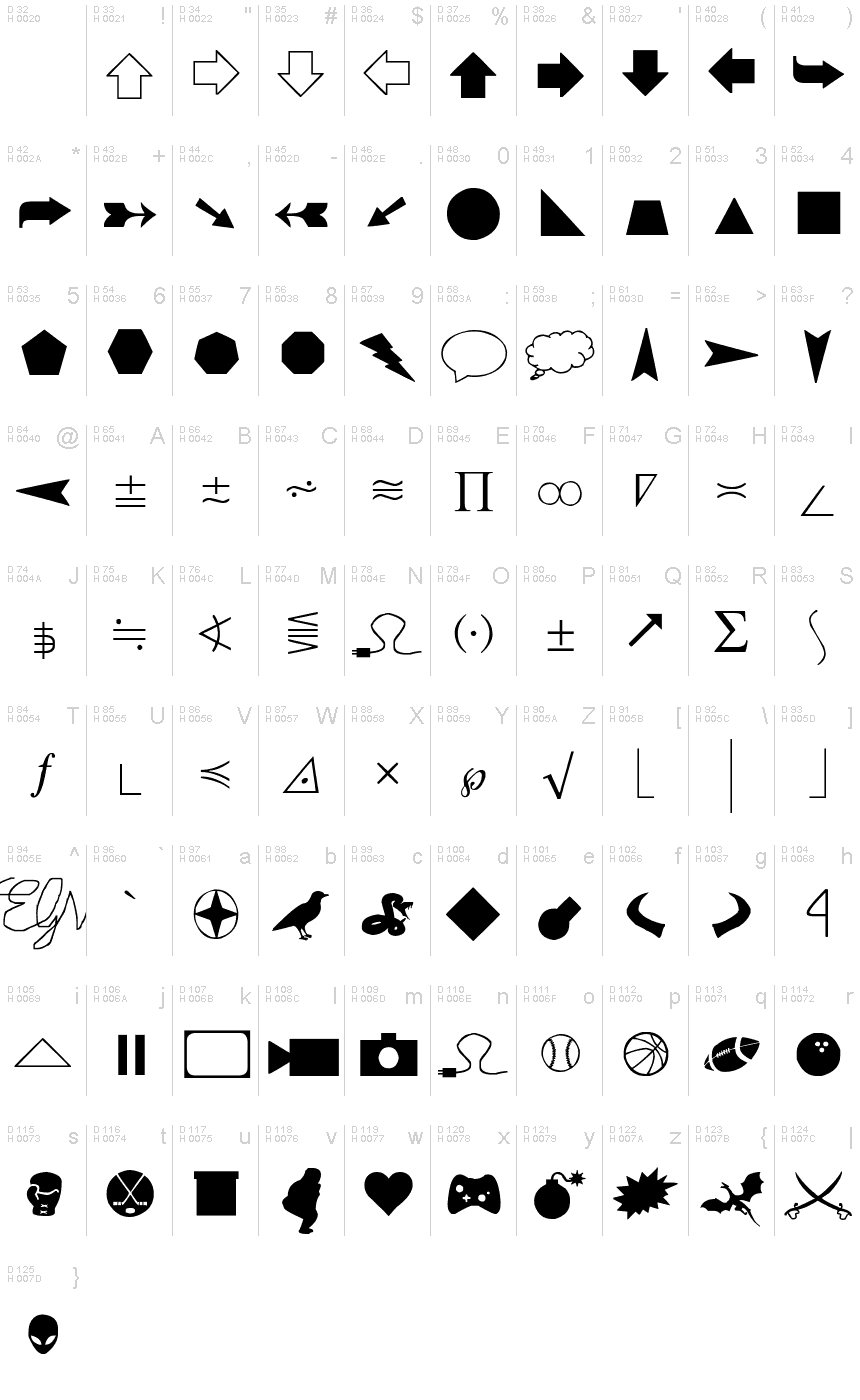
Markdings Two
Markdings Two, crafted by an innovative typographer, is a captivating dingbats font that introduces a modern twist to your design projects. With its geometric signs and versatile arrows, this typeface unleashes endless creative possibilities. From futuristic logos to sleek website icons, Markdings Two provides a sophisticated touch to any visual masterpiece. Its semi-bold font style adds an air of confidence and elegance, making it perfect for branding materials, signage, packaging designs, and even social media graphics. Let your imagination run wild as you unlock the power of Markdings Two in all its diverse glory.